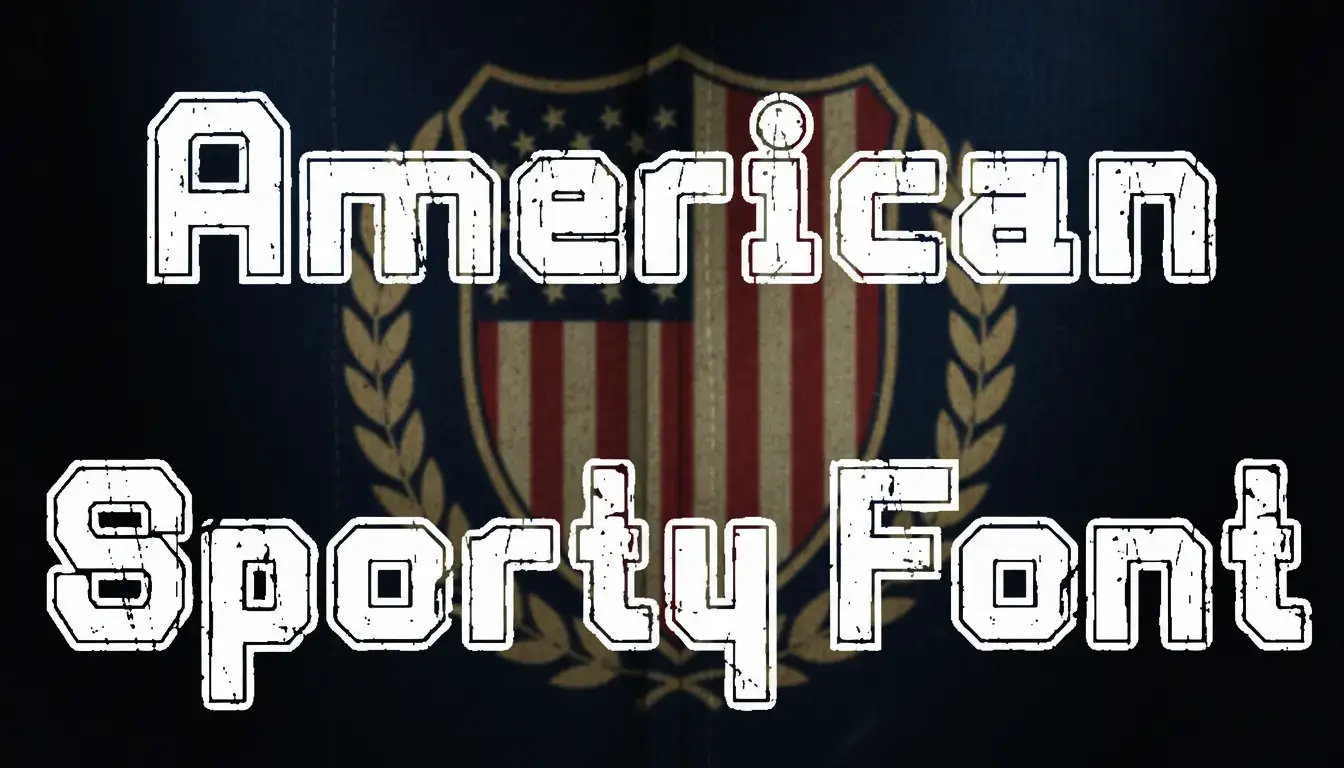
American Sporty Font
American Sporty is a bold, modern display typeface created by Display Studio. It falls into the “Fancy > Old School” typography category, featuring blocky, hard-edged letterforms meticulously designed to capture the high-energy aesthetic of athletics, collegiate branding, and vintage jerseys.
American Sporty is an old school font designed by Display Studio. Its letters look like they came off an old sign or a vintage product label. You can download it for free and test it with your own words in the preview above.
What You Can Type With American Sporty
You get every letter from A to Z in both cases and all the numbers from 0 to 9, which means American Sporty can handle full sentences, dates and prices. Common punctuation such as &, !, ? and @ is included as well. It also has the accented letters you need for Spanish, French, German, Portuguese and Italian.
Where American Sporty Works Best
American Sporty is a natural fit for vintage signs, barber shop logos and retro labels. Put it on an off-white or kraft-paper background and it instantly looks older.
Does American Sporty support accented letters?
Yes. American Sporty includes the accented letters needed for Spanish, French, German, Portuguese and Italian, so it works for more than just English.
What fonts pair well with American Sporty?
It pairs nicely with a classic serif or a condensed sans serif for the supporting lines.